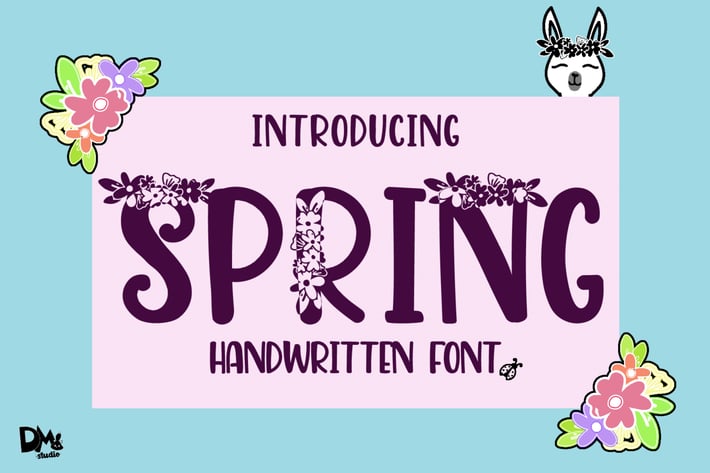
Spring Handwritten Font
SPRING the lovely floral handwritten font.
This is a spring-theme font to beautify your spring day! Comes with 2 style, the normal style without decorative flower and alternatives style with flowers. This font will looks great for any design and crafts, such as quotes, cards, promotion, social media post, cutting design, merchandise, and much more.
SPRING features :
- Standard Characters ( UPPERCASE & lowercase )
- Numerals
- Symbols
- Alternated versions